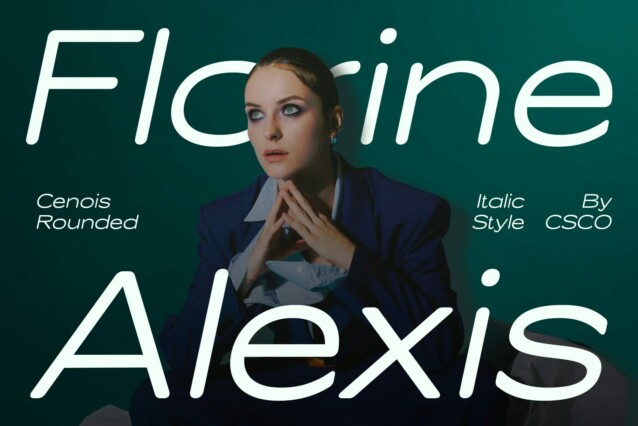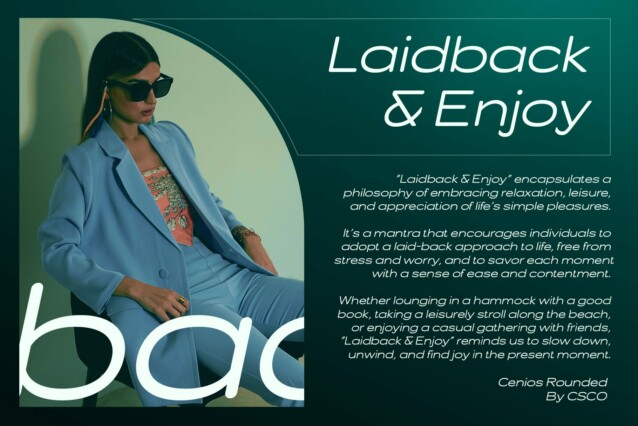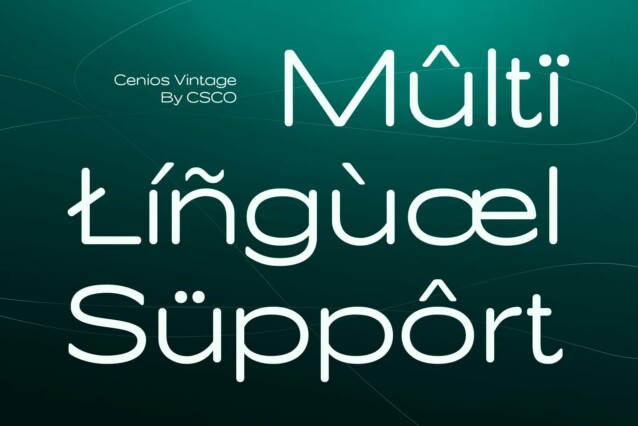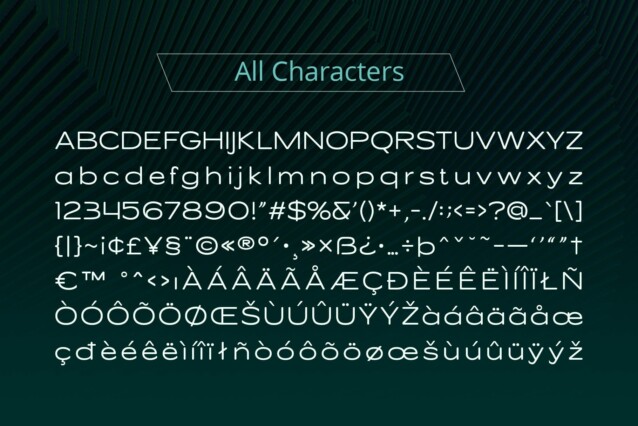
Cenios Rounded Font
Cenios Rounded Font is a low-contrast sans serif design, maintaining a clean and minimalist aesthetic ideal for corporate applications.
Neat and Tidy Appearance With its precise lines and uniform strokes, This font exudes a sense of neatness and tidiness, perfect for conveying professionalism and reliability.